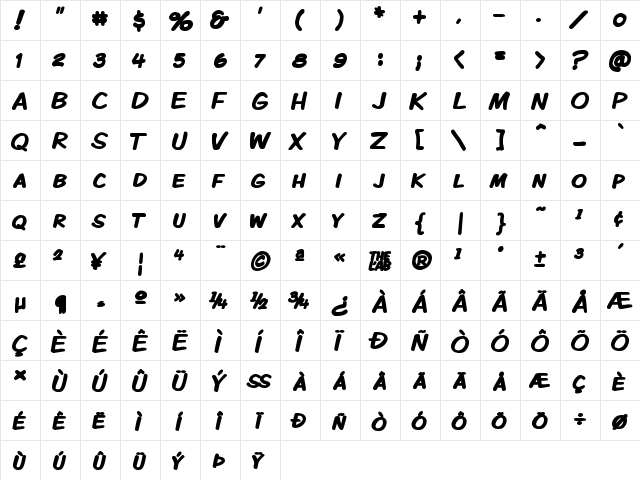
Komika Display Kaps Bold
| Designer | WolfBainX |
Design Context for Komika Display Kaps Typeface
Komika Display Kaps brings ornamental detail and strong personality to headlines and identities, where visual impact matters more than quiet functionality. Its bold stroke weight gives it real presence on the page.
Font Pairing: Pair with a clean neutral sans-serif for body copy to let Komika Display Kaps's character lead without overwhelming the composition.
Pro Tip: Use Komika Display Kaps exclusively at display sizes — it was designed to be seen, not read at length. Let a neutral companion handle body copy.